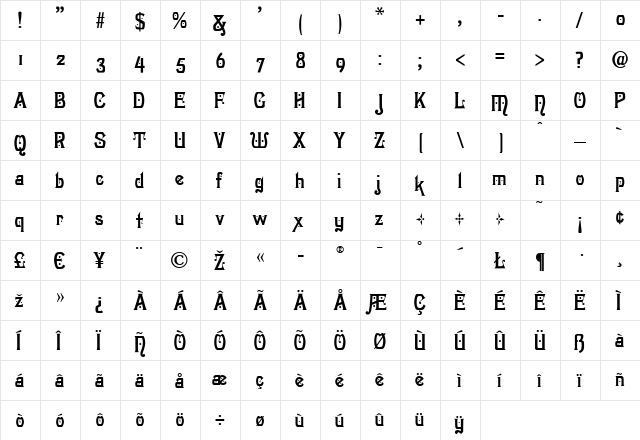
HogarthAntique Regular
| Foundry | Digitized by Dan X. Solo. Software \ by Dover Publications, Inc |
Design Context for HogarthAntique Typeface
HogarthAntique wears its vintage influences proudly, with letterforms that recall mid-century signage, classic packaging, and nostalgia-driven design.
Perfect for vintage-inspired branding, retro packaging, nostalgia campaigns, and period-accurate editorial design.
Font Pairing: Combine HogarthAntique with a simple slab or neutral sans — period-accurate companions reinforce the vintage feel without competing for attention.
Pro Tip: Use HogarthAntique for headlines and pull quotes rather than body copy — its personality is best appreciated in short, focused bursts.